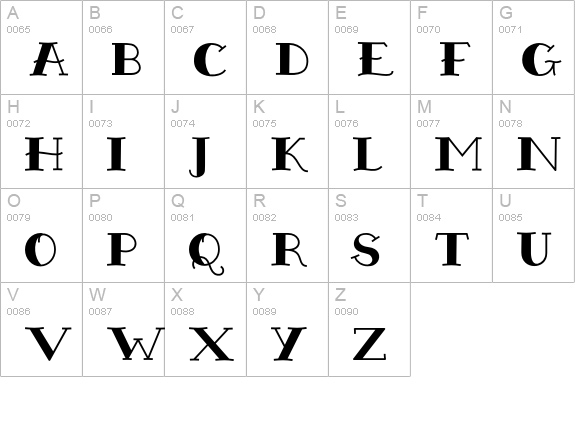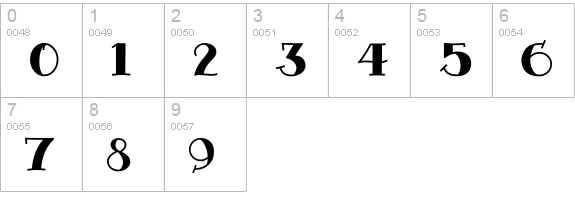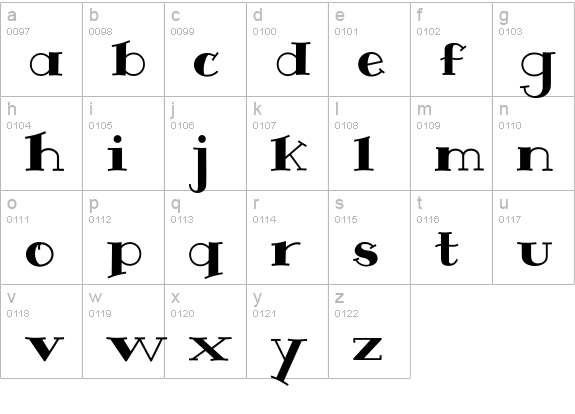
Sailor Gothic-Bold is a strong, high-contrast variant in the Sailor typeface family \xE2\x80\x94 well suited to headlines, attention-grabbing titles, and strong calls-to-action.
Introducing Sailor Gothic-Bold, a captivating and versatile font that effortlessly combines elegance and edginess. With its bold and striking appearance, this font is perfect for creating eye-catching headlines, captivating logos, impactful posters, and stylish branding materials. Sailor Gothic-Bold exudes a sense of mystery and intrigue, with its intricate and sophisticated letterforms that draw inspiration from classic gothic typography. Its strong and bold strokes demand attention, making it an ideal choice for projects that require a bold and powerful statement. What sets Sailor Gothic-Bold apart is not only its remarkable design but also its accessibility. This remarkable font is available for free download at FontsMarket.com, allowing designers, creatives, and enthusiasts alike to bring their visions to life without any financial limitations. Whether you're a professional designer looking to make a lasting impression, or a passionate individual seeking to add a touch of boldness to your personal projects, Sailor Gothic-Bold is here to cater to your creative needs. Its versatility ensures that it can effortlessly adapt to a wide range of design styles and applications, making it a true gem in any designer's toolbox. Download Sailor Gothic-Bold today from FontsMarket.com, and unleash your creativity with this stunning font that seamlessly blends elegance, boldness, and the freedom of being freely available to all.